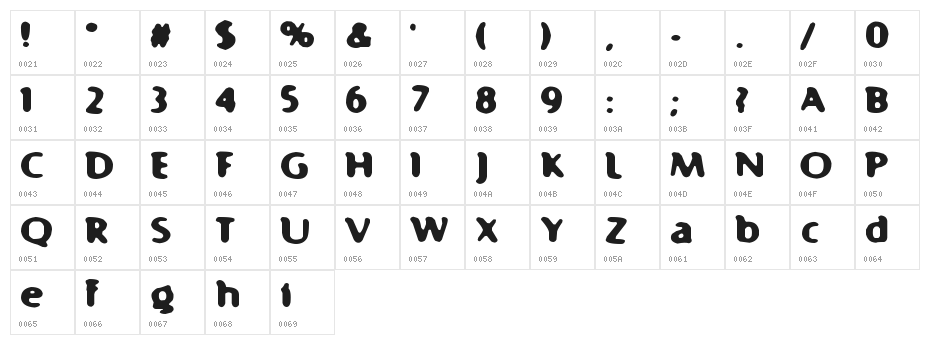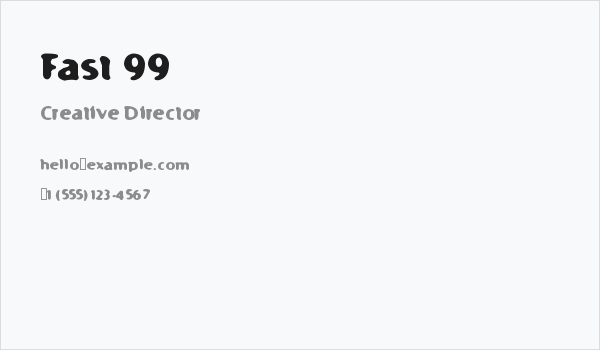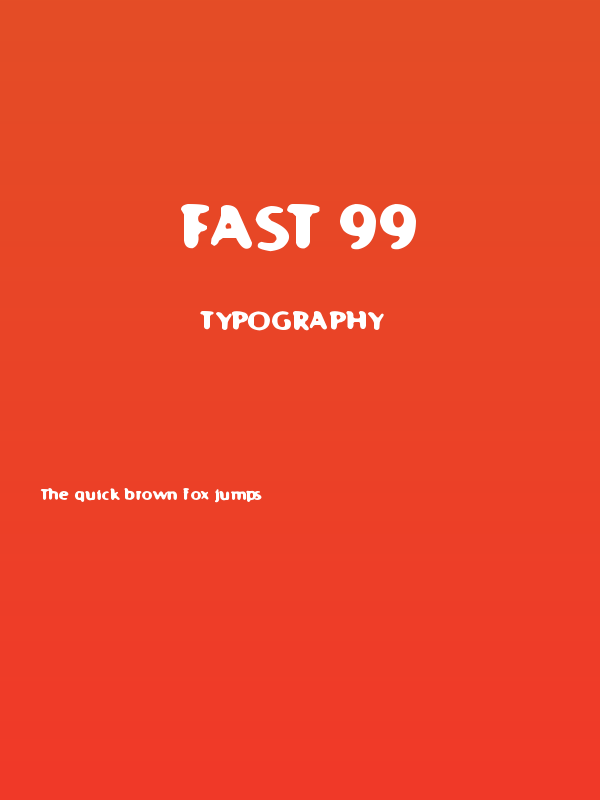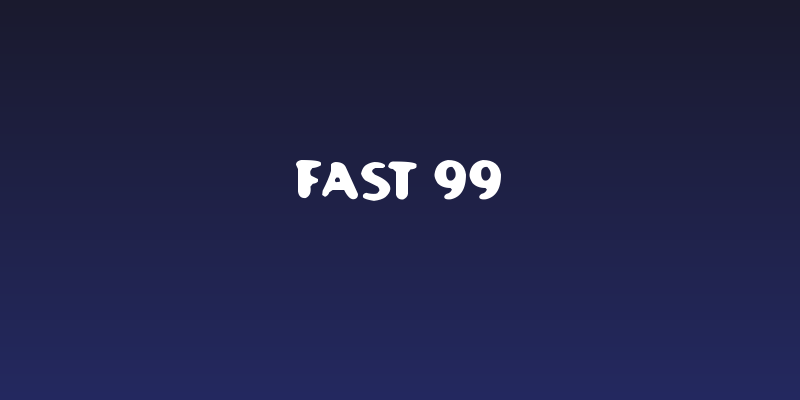
Fast 99 Font
| Stile generale | Playful, Whimsical |
| Progetti proposti | Ideal for children's books, playful branding, party invitations, and creative posters. |